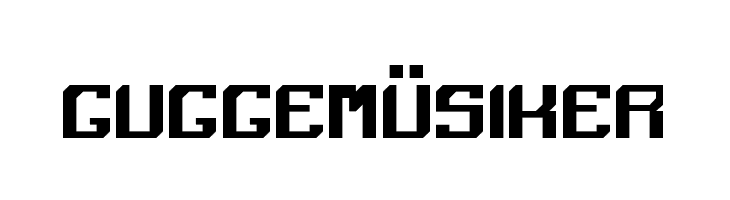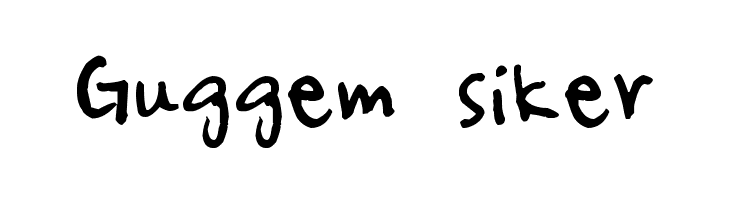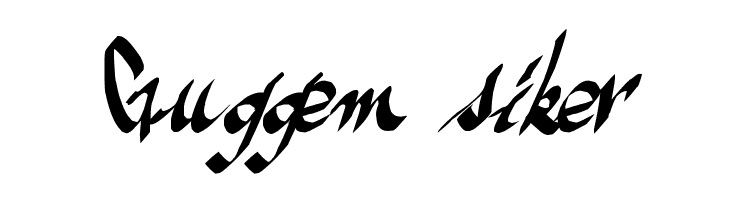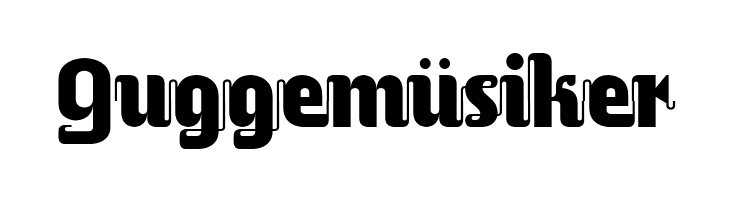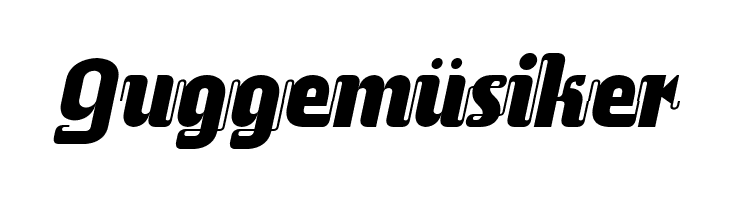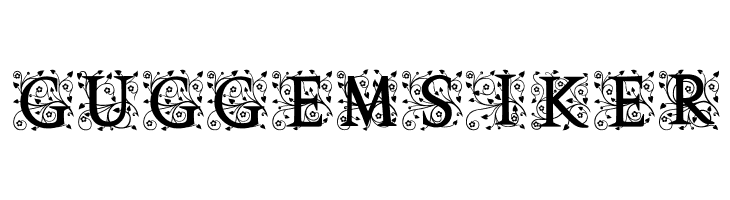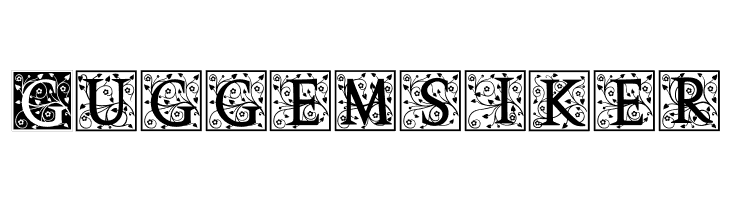
A bold, geometric font with a modern and structured design.
A modern oblique font with a sleek, dynamic style.
A playful, handwritten font with a casual and whimsical style.
A casual, playful handwritten font with irregular, organic letterforms.
A bold, decorative font with high contrast and artistic flair.
An elegant, italicized font with medium contrast and flowing design.
Elegant italic ligatures with smooth, connected strokes and balanced contrast.
An elegant, decorative font with intricate ligatures and flowing curves.
An elegant outline font with art deco influences and unique character flourishes.
A decorative font with sloped small caps and artistic flair.
A decorative font with elegant, artistic letterforms and playful curves.
A playful, rounded font with smooth curves and a friendly appearance.
A casual, handwritten font with a playful and informal style.
An ornate, decorative font with intricate floral designs within square borders.
An ornate and decorative serif font with intricate floral embellishments.
A bold, graffiti-inspired font with sharp, angular strokes and a dynamic, hand-drawn style.
A playful, hand-drawn font with irregular, dynamic letterforms.
A bold, narrow font with a modern and impactful style.
A dingbat font with sci-fi vehicle illustrations and a bold display title.
A bold, decorative dingbat font with illustrated character icons.
A bold, hand-drawn font with a playful and energetic style.
A bold, decorative font with intricate Western-inspired details.